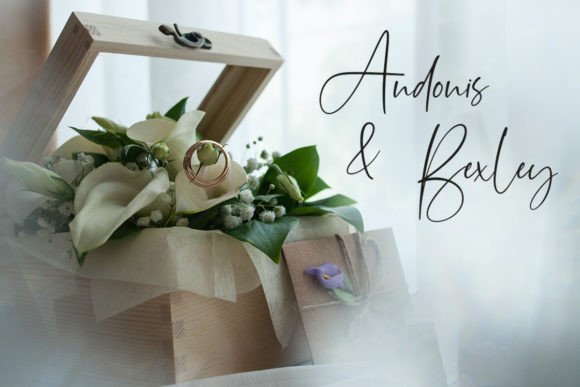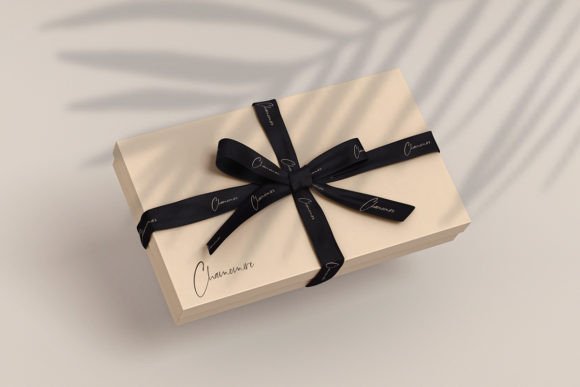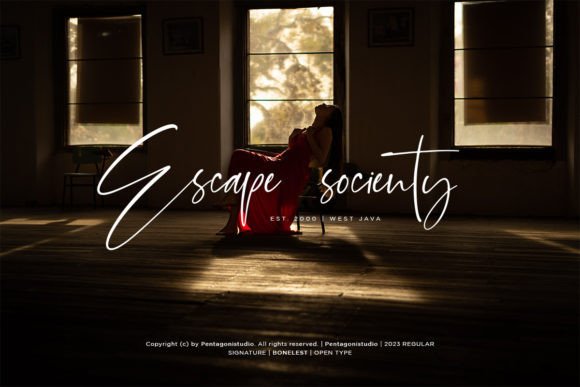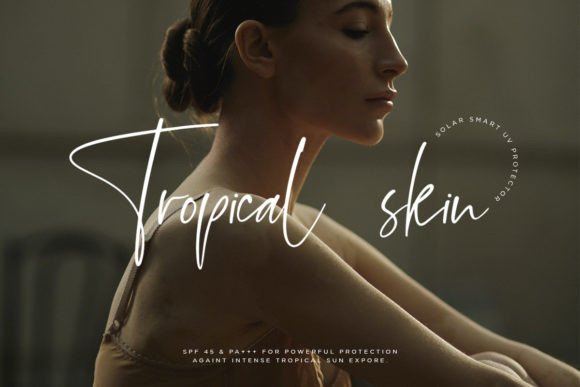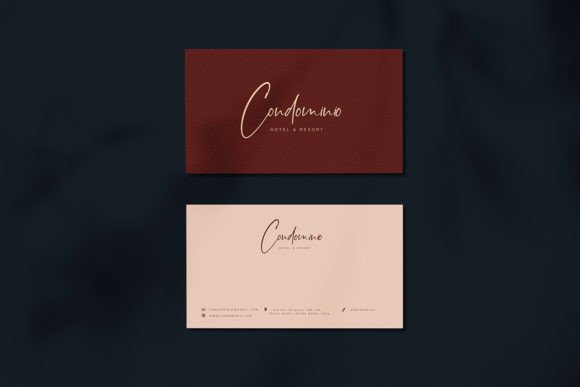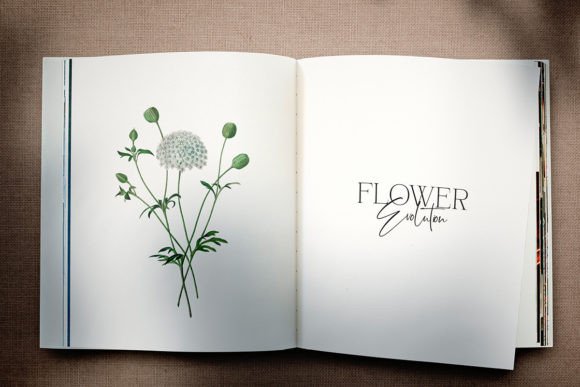
Introducing Bonelest Font: The Epitome of Romantic and Deluxe Calligraphy
In the realm of typography, few fonts manage to evoke the essence of luxury and romance as effectively as Bonelest. This exquisite calligraphy typeface is designed to bring a captivating flair to any design project, making it the perfect choice for those seeking to add a touch of elegance and sophistication. With its refined aspects and beautiful characters, Bonelest is ideal for creating stunning invitations, event posters, theater tickets, and any other material that requires a luxurious art form.
The Characteristics of Bonelest Font
Bonelest Font is a masterfully crafted calligraphy typeface that boasts a range of distinctive characteristics. Its romantic and deluxe feel is evident in the intricate details and flowing lines that define each character. The font’s design is inspired by traditional calligraphy, with a modern twist that makes it versatile and easy to use. Whether you’re looking to create a beautiful wedding invitation or a stylish event poster, Bonelest’s elegant and refined aesthetic is sure to impress.
Uses of Bonelest Font
One of the key benefits of Bonelest Font is its versatility. Its luxurious and artistic feel makes it suitable for a wide range of design projects, including:
• Wedding Invitations: Add a touch of romance and elegance to your wedding invitations with Bonelest’s beautiful calligraphy.
• Event Posters: Create stunning event posters that exude luxury and sophistication with Bonelest’s refined typography.
• Theater Tickets: Give your theater tickets a touch of glamour and sophistication with Bonelest’s deluxe calligraphy.
• Logos and Branding: Use Bonelest to create a luxurious and memorable logo or brand identity that sets your business apart.
Why Choose Bonelest Font?
With so many fonts available, why choose Bonelest? Here are just a few reasons why designers and crafters love this beautiful calligraphy typeface:
• Unique and Distinctive: Bonelest’s romantic and deluxe feel sets it apart from more traditional fonts, making it perfect for designers looking to create something unique and eye-catching.
• Elegant and Refined: The font’s elegant and refined aesthetic makes it suitable for a wide range of design projects, from luxury brands to wedding invitations.
• Easy to Use: Despite its intricate details, Bonelest is surprisingly easy to use, making it accessible to designers of all skill levels.
Tips for Using Bonelest Font
To get the most out of Bonelest Font, here are a few tips to keep in mind:
• Use it Sparingly: While Bonelest is a beautiful font, it’s best used sparingly to avoid overwhelming the design. Use it for headings or titles to add a touch of luxury and elegance.
• Pair it with a Simple Font: For body text, pair Bonelest with a simple and clean font to create a striking contrast.
• Experiment with Colors: Don’t be afraid to experiment with different colors and textures to add depth and interest to your design.
In conclusion, Bonelest Font is a romantic and deluxe calligraphy typeface that is sure to bring a captivating flair to any design project. With its refined aspects and beautiful characters, it’s the perfect choice for designers and crafters looking to create luxurious and elegant designs. Whether you’re creating wedding invitations, event posters, or theater tickets, Bonelest is the perfect font to add a touch of sophistication and glamour.